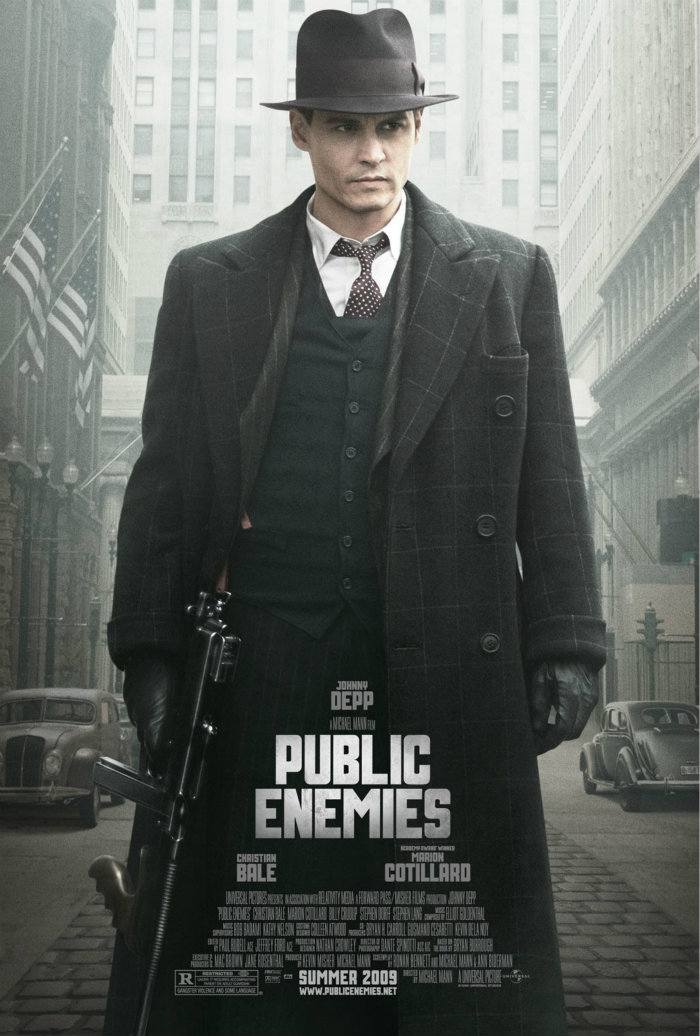
Public Enemies (Film) Font
CrimePublic Enemies is a 2009 American biographical crime film directed by Michael Mann, depicting the life of notorious bank robber John Dillinger (played by Johnny Depp) and the efforts of law enforcement to bring him to justice during the Great Depression.
The film poster displays an industrial sans-serif font called New Deal, designed specifically for the film by Neville Brody. This typography is not available for public use. If you are looking for a similar square and industrial look, check out Gaz Heavy by Ray Larabie and Agency Black from Font Bureau.